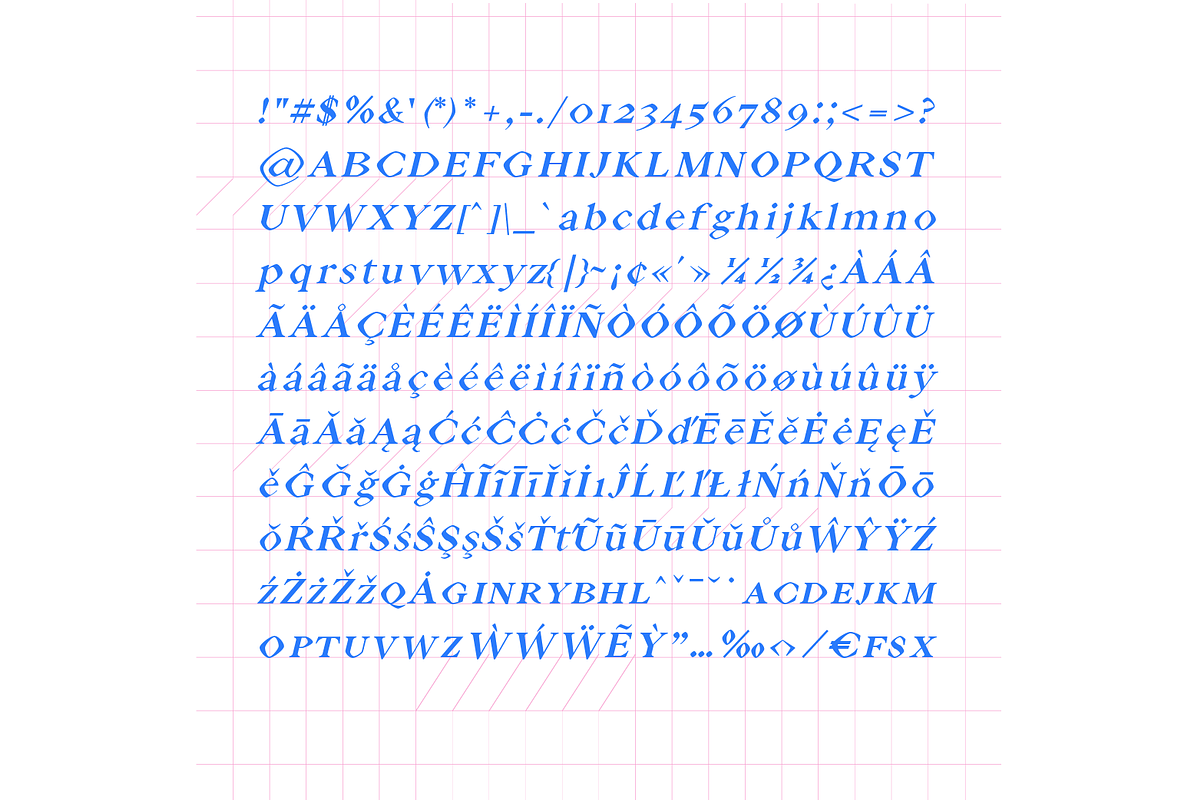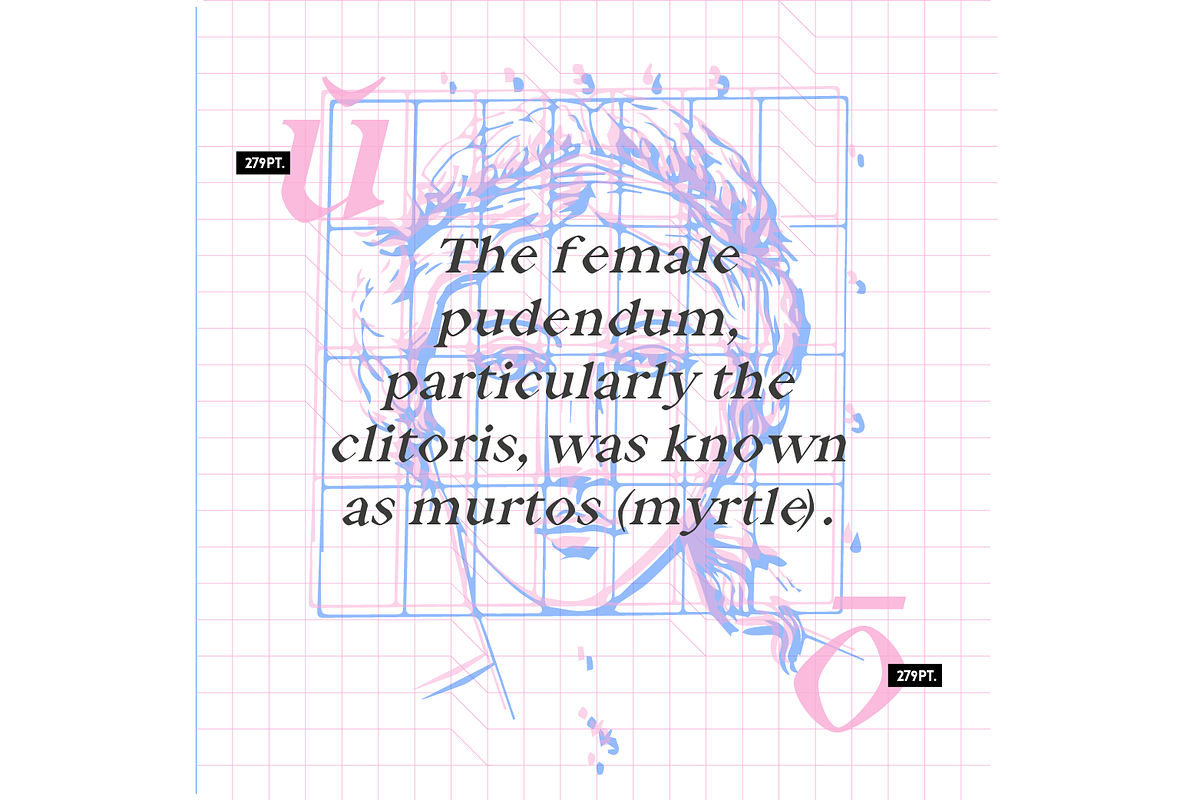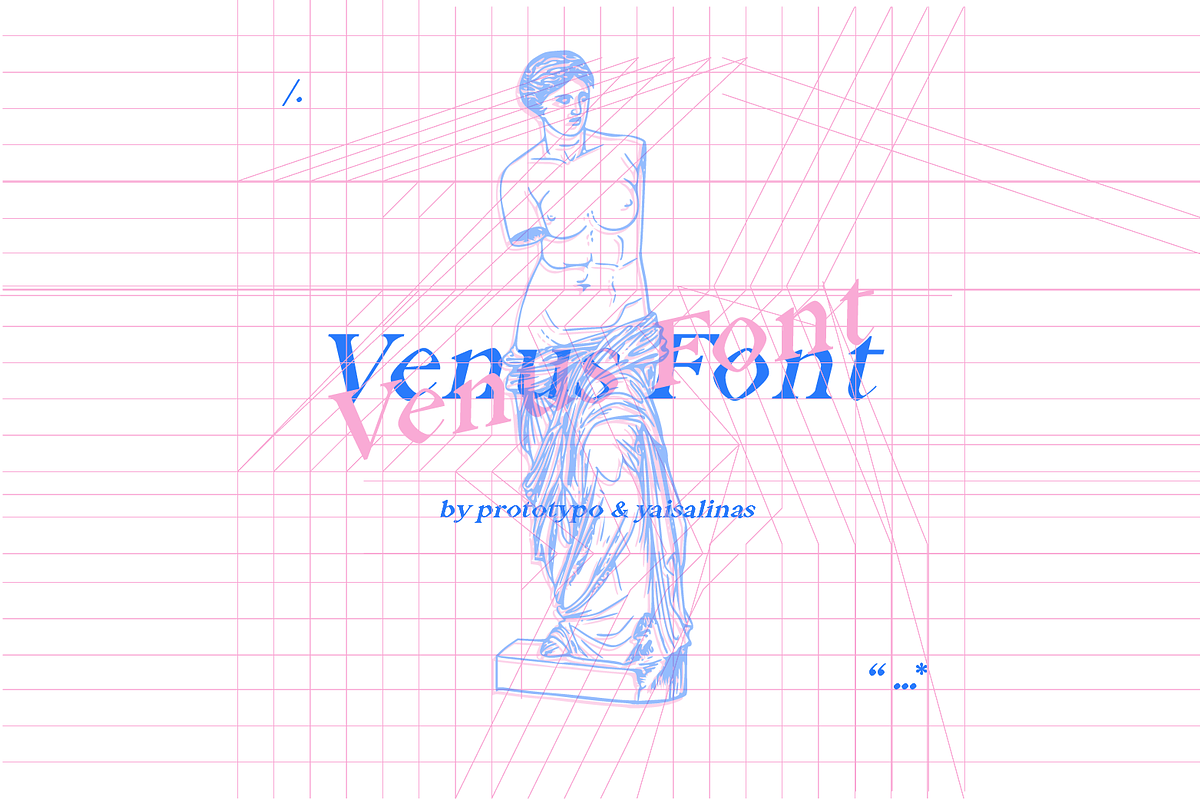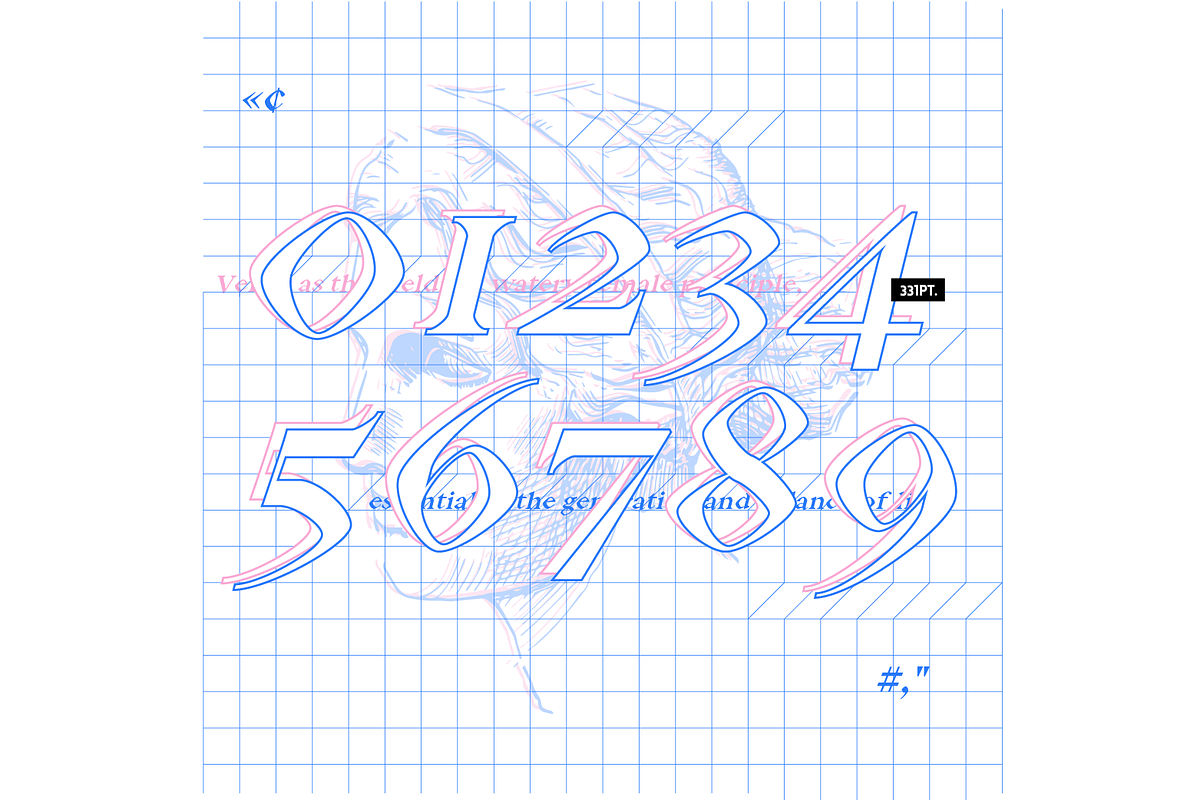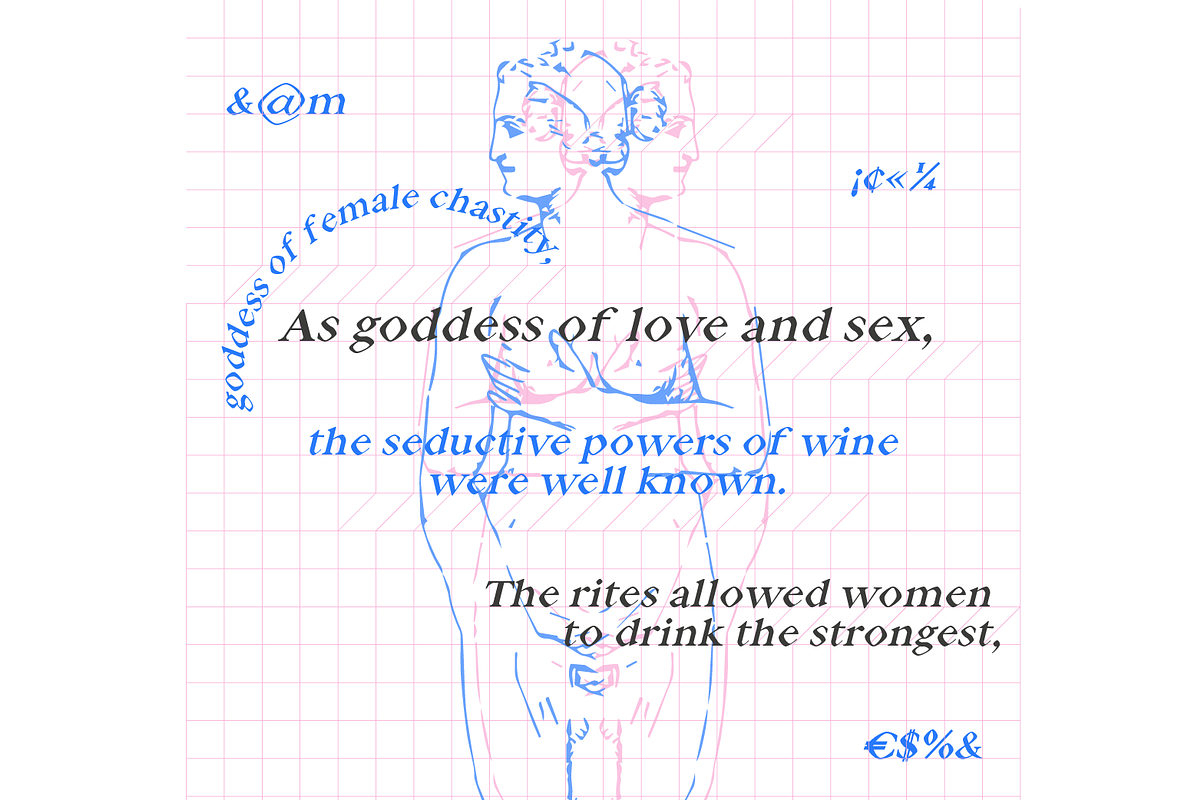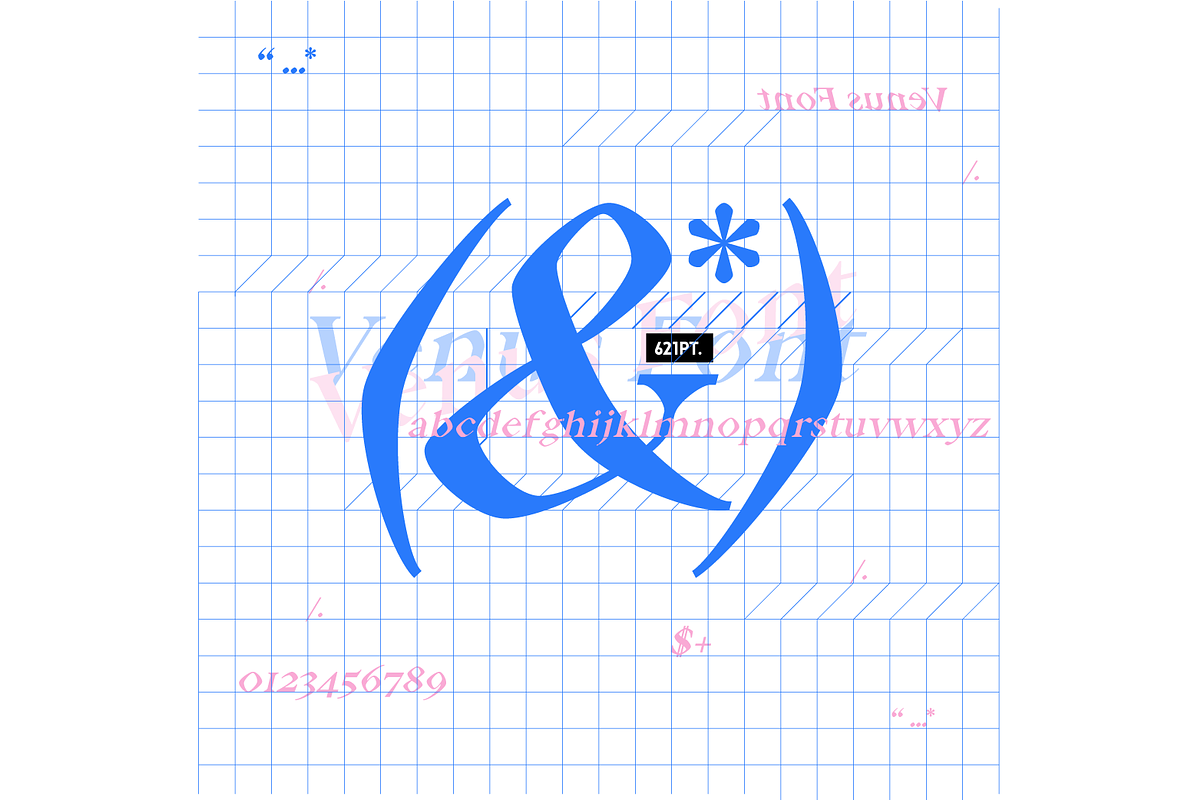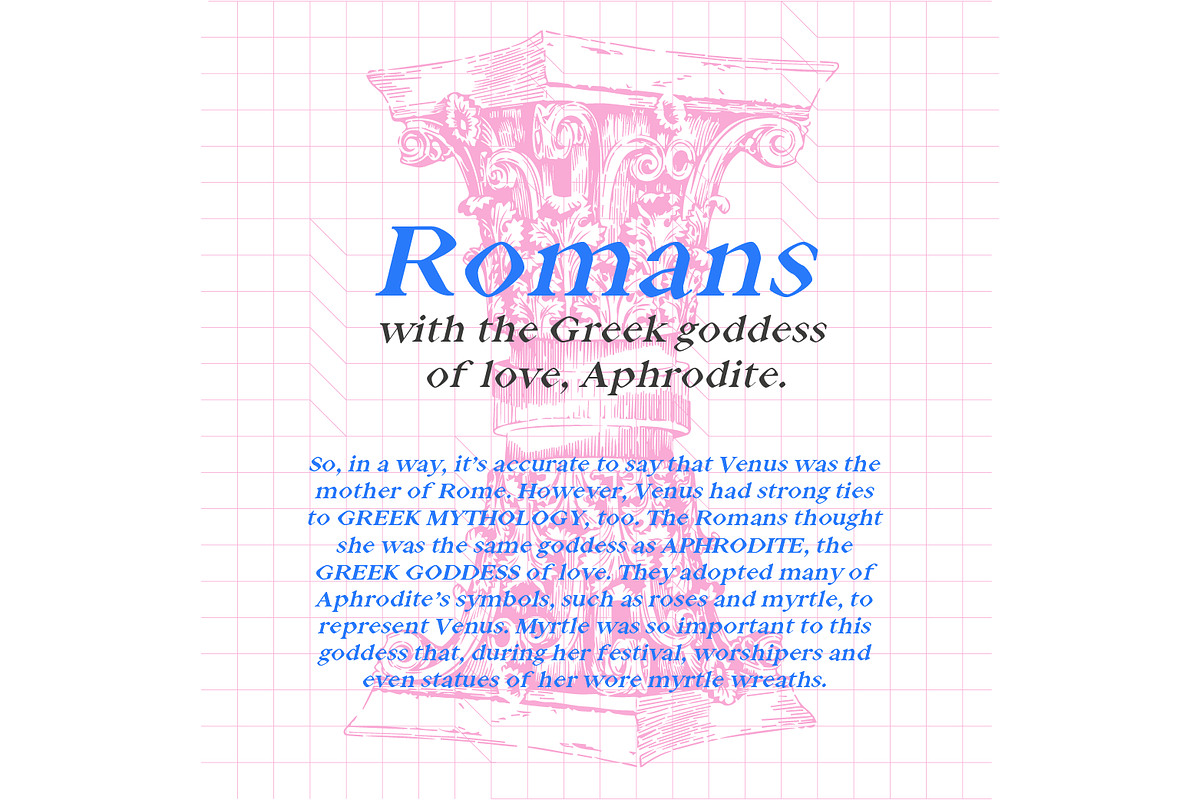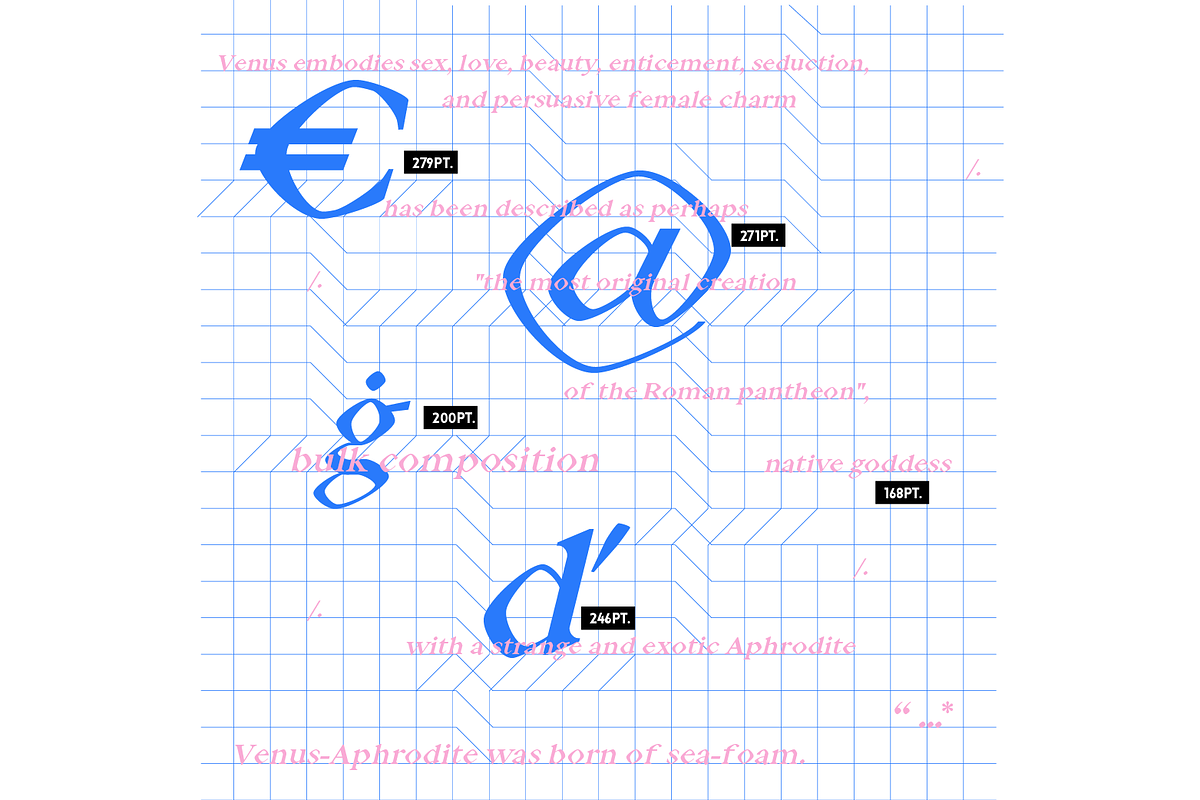
Venus Font
Venus Font designed with
Why Venus Font is worth a look
Venus Font by yaisalinas fits naturally into Branding, posters, packaging, typography.